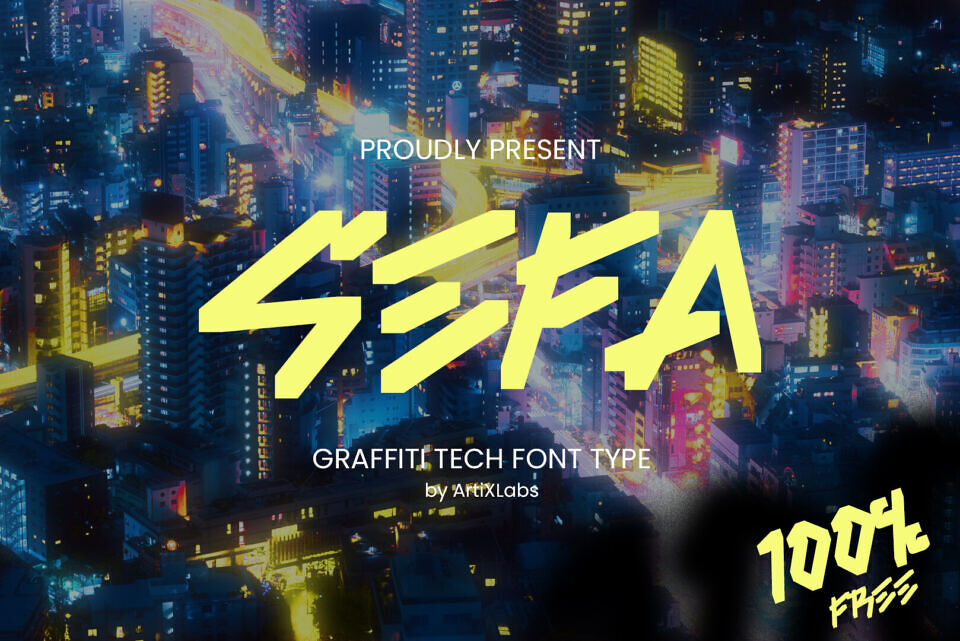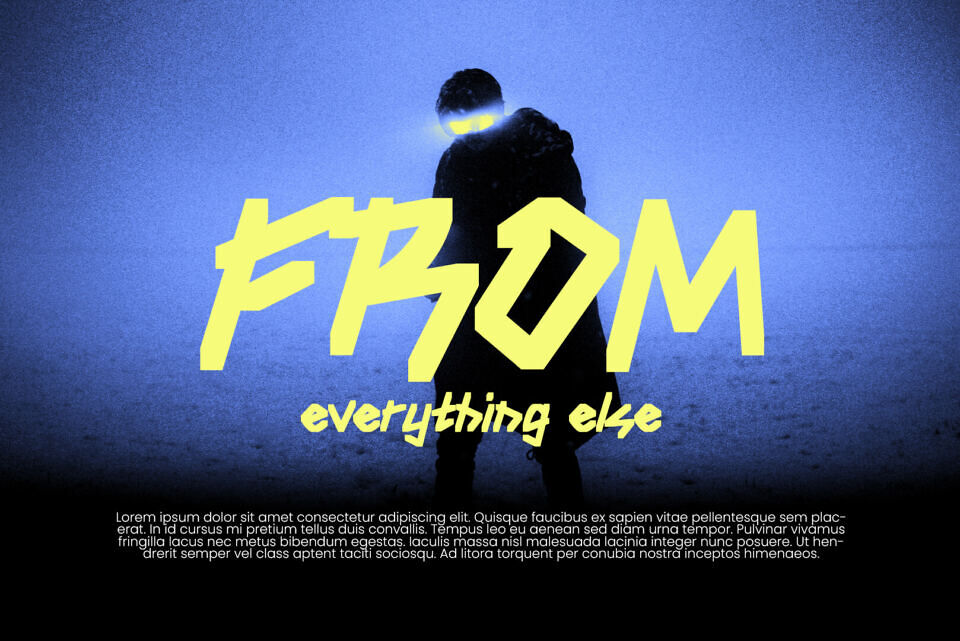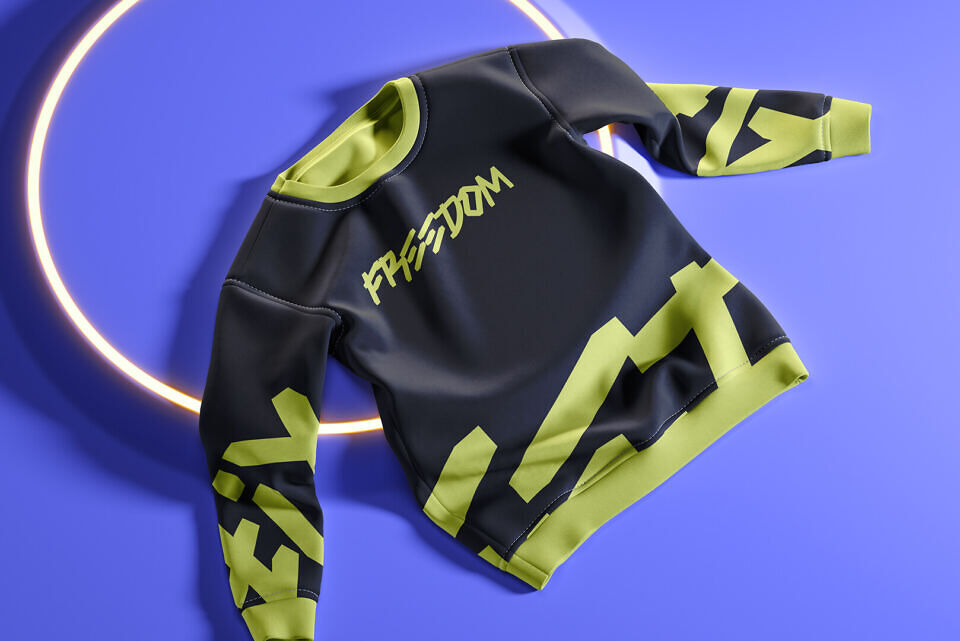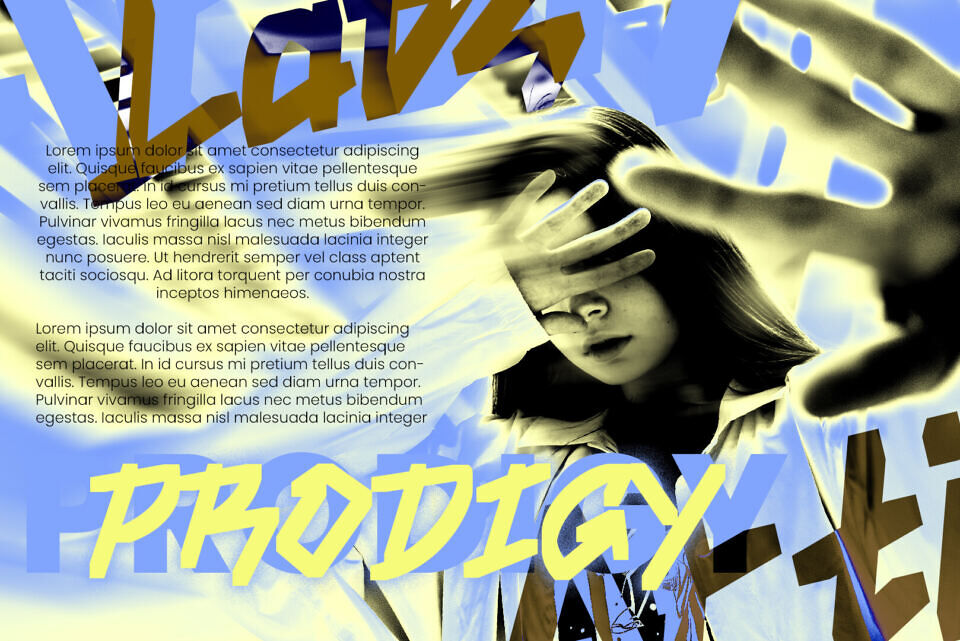
Sefa Font
SEFA is a bold graffiti tech font inspired by cyberpunk cityscapes and urban street style. Its sharp edges and futuristic shapes make it perfect for logos, esports branding, posters, merchandise, and any design that needs a strong and modern look.